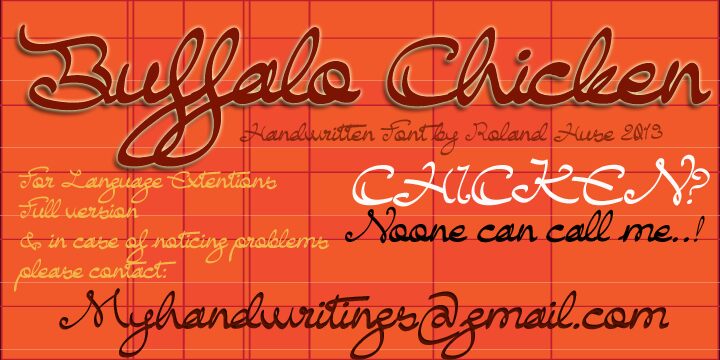
Buffalo Chicken by Roland Huse is a free calligraphic script with exuberant, looping capitals and long connecting strokes. Its line changes from fine hairpins to broad, rounded sweeps, giving the letters a lively hand-drawn pace. Several forms stretch dramatically above or below their neighbors.
Those curling strokes can echo ribbons or loose line illustration in event posters and invitation suites. The same decorative movement suits boutique packaging and music merchandise with an informal, theatrical edge. In editorial design, it can turn a feature title into an illustrated flourish.
BUFFALO CHICKEN is a cursive, continuous-looking font. This is currently a demo version.
Typing with Caps Lock is not recommended because the uppercase letters have not been kerned with one another; however, they look better when followed by lowercase letters.